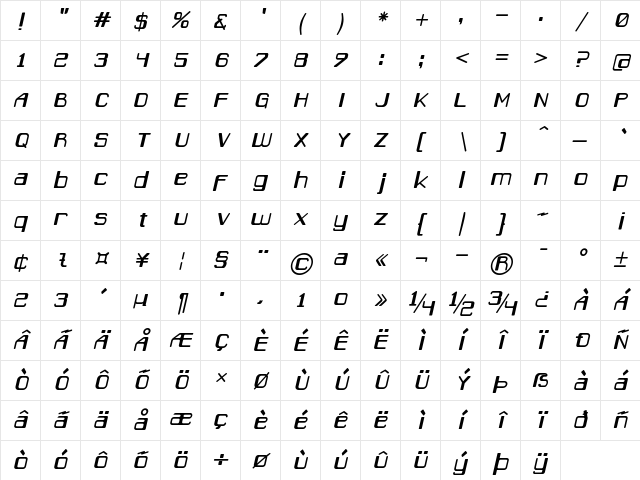
Complete Caracas Italic glyph index. Displaying only characters natively supported by Caracas Italic font.
Caracas is a composed and adaptable typeface that performs quietly and consistently across a wide range of design contexts. The slanted form adds forward momentum and visual energy.